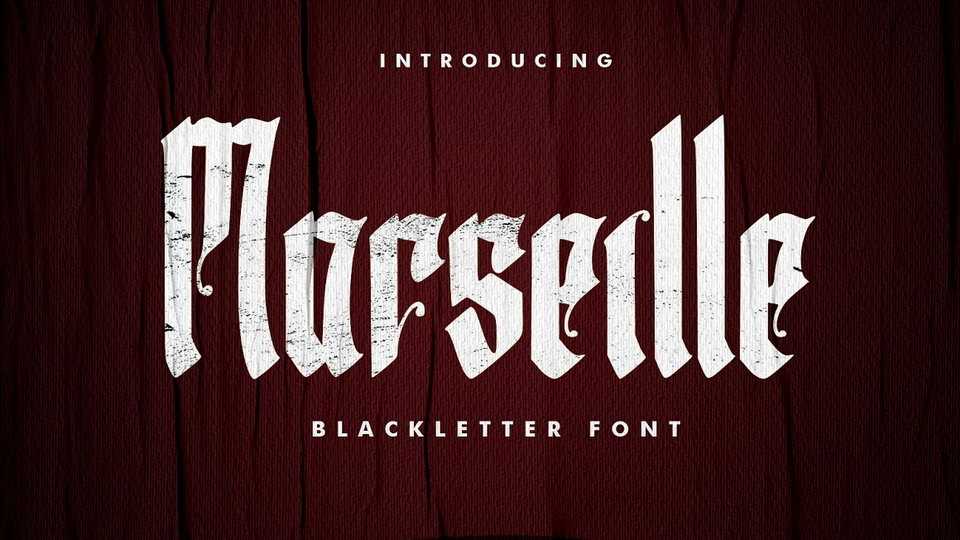
Download Marseille font, a unique blackletter typeface. Marseille is a great choice for vintage projects, it suitable for headline, logotype, apparel, invitation, branding, packaging, advertising etc.
Designer: Typotopia